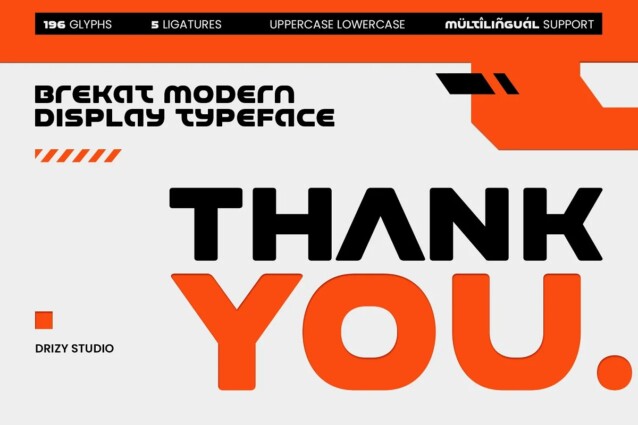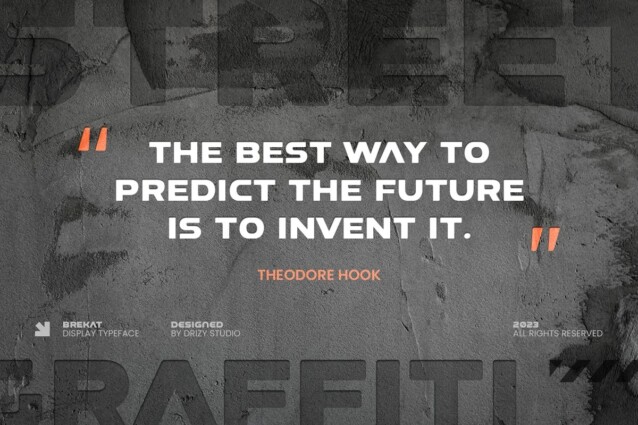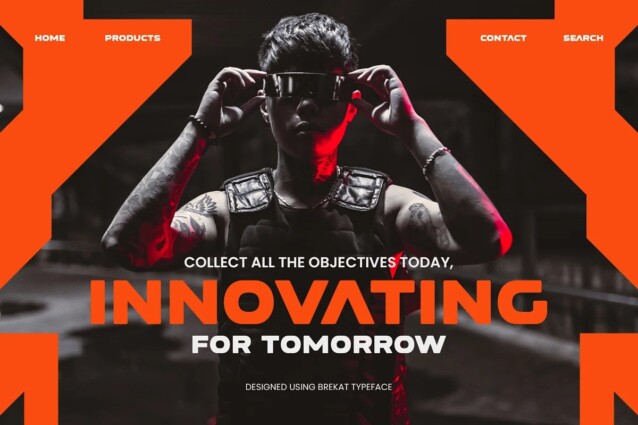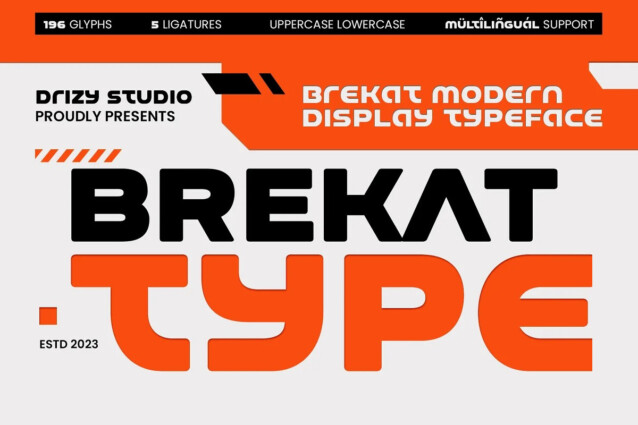
Brekat Font
Brekat Font is a modern and simple font from Drizy that is meticulously crafted to add a touch of sophistication and elegance to your graphic designs. With its clean lines, sleek curves, and distinctive characters, Brekat is the perfect choice for a wide range of design applications.